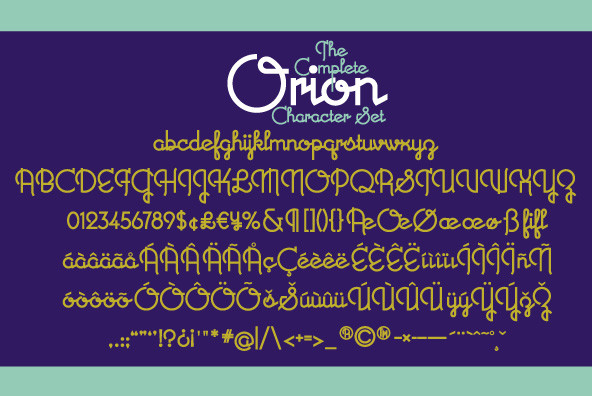
A font where each word that's set approaches becoming its own logo is how some have described this unique typeface. Originally inspired by an enamel sign he picked up at a Paris flea market.
A font where each word that's set approaches becoming its own logo is how some have described this unique typeface. Originally inspired by an enamel sign he picked up at a Paris flea market, Michael Doret says that the seven letters contained in the sign were enough to suggest to him that here were letterforms put together in a way that he had never seen in a contemporary digital font. Always eager to create something a little out of the ordinary, he took up the challenge to flesh out the forms into a complete font. Orion can be defined as a geometric, connecting script that is at once contemporary, yet classic and timeless.